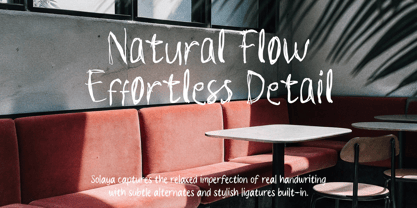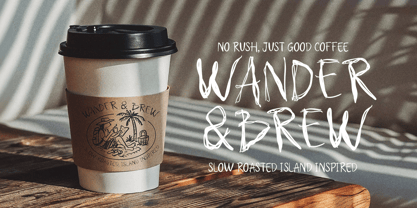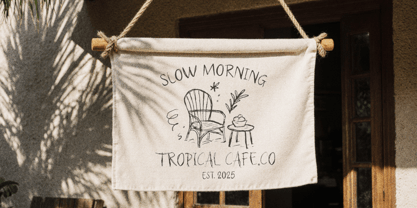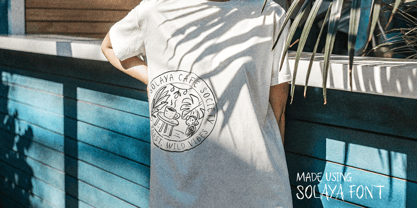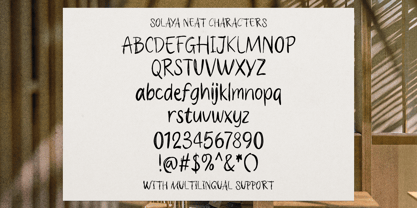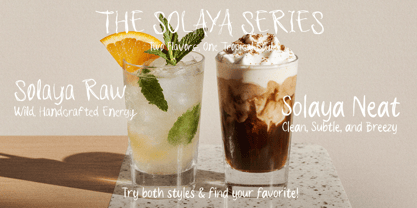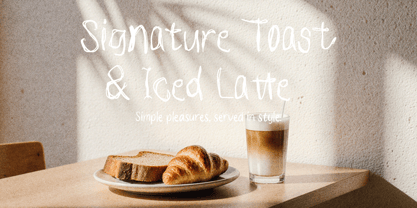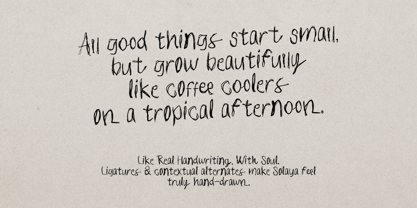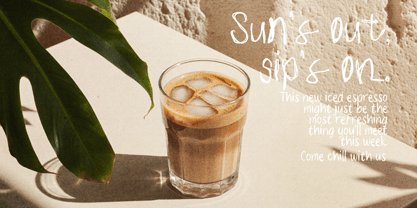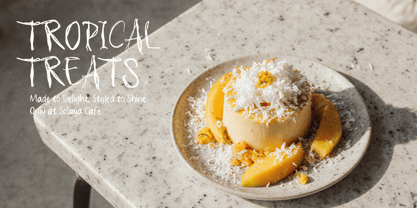
Solaya
by Rillatype
The Solaya Font Family was designed by Gustian Agung Asprilla and published by Rillatype. Solaya contains 2 styles and family package options.
Solaya is a handwritten font duo inspired by the cozy atmosphere of tropical cafés — where the breeze is warm, the tables are wooden, and every corner feels slow and intentional.
This font captures that easygoing spirit, combining natural hand movements with calm letterforms. Whether you’re creating café branding, packaging, quotes, or editorials — Solaya brings a personal, sunny charm to your work.
It includes two styles:
• Solaya Raw – expressive and organic
• Solaya Neat – smoother and more polished